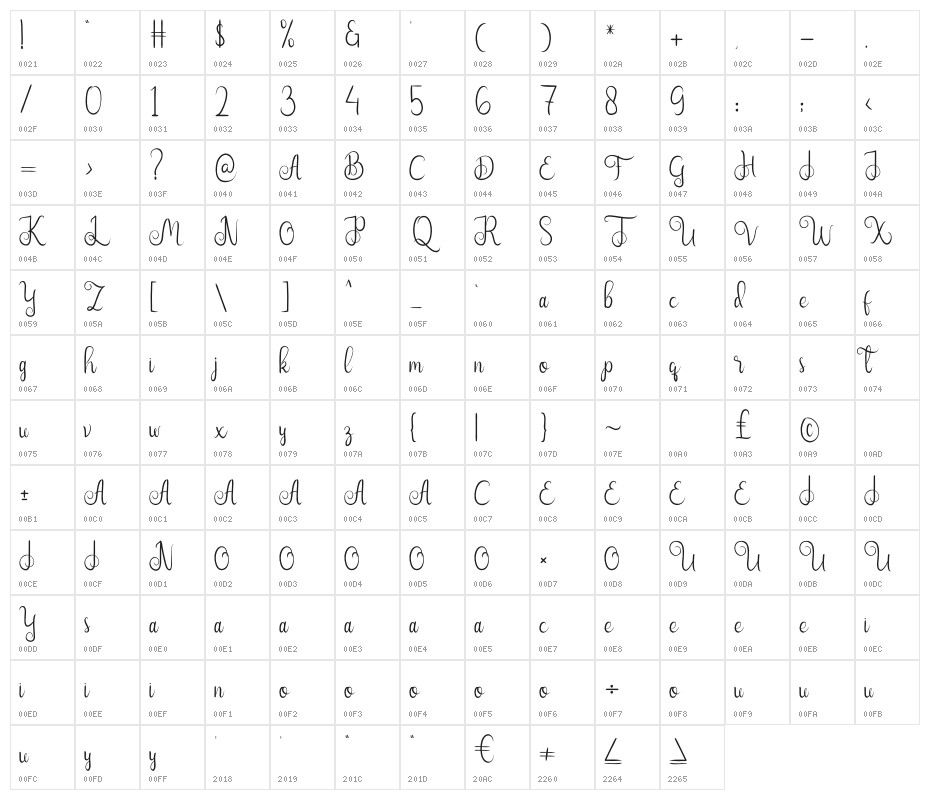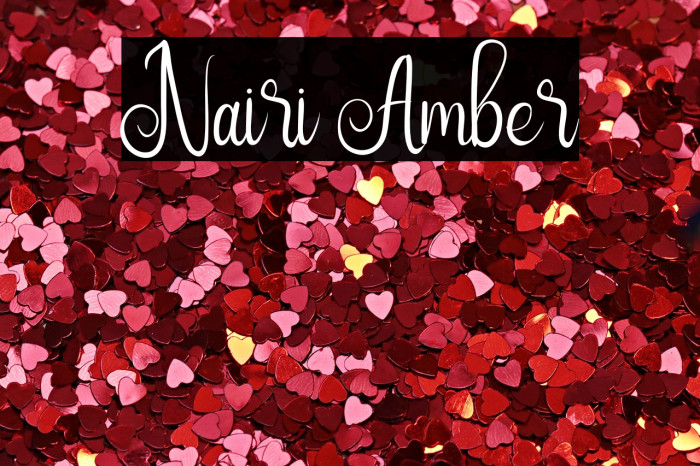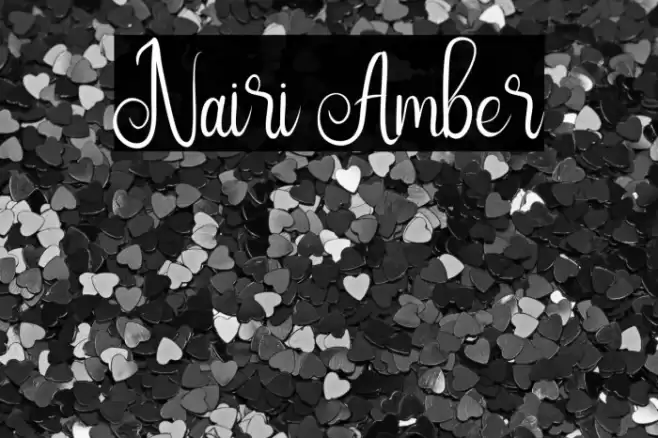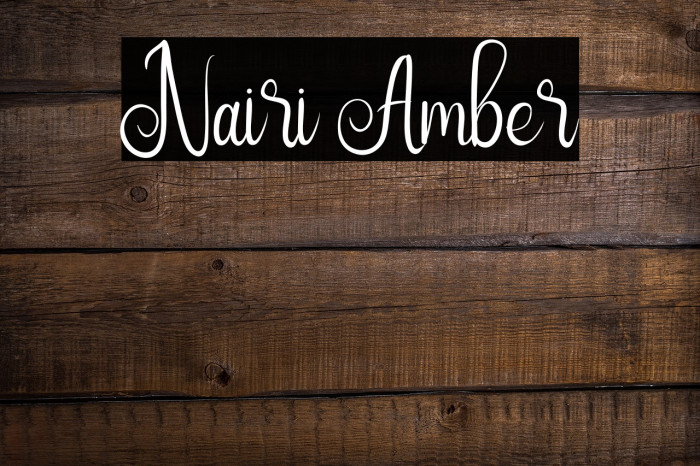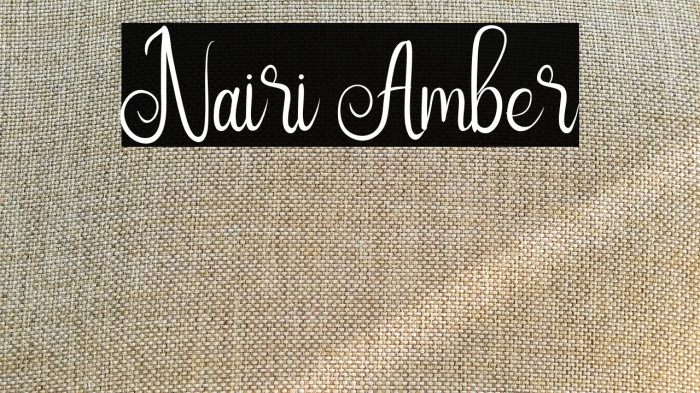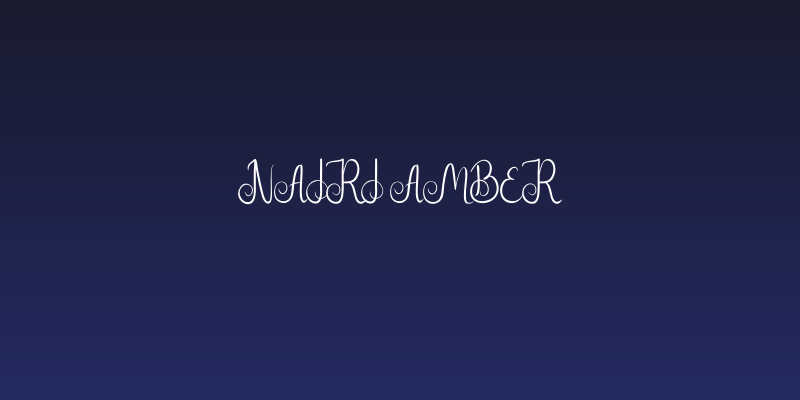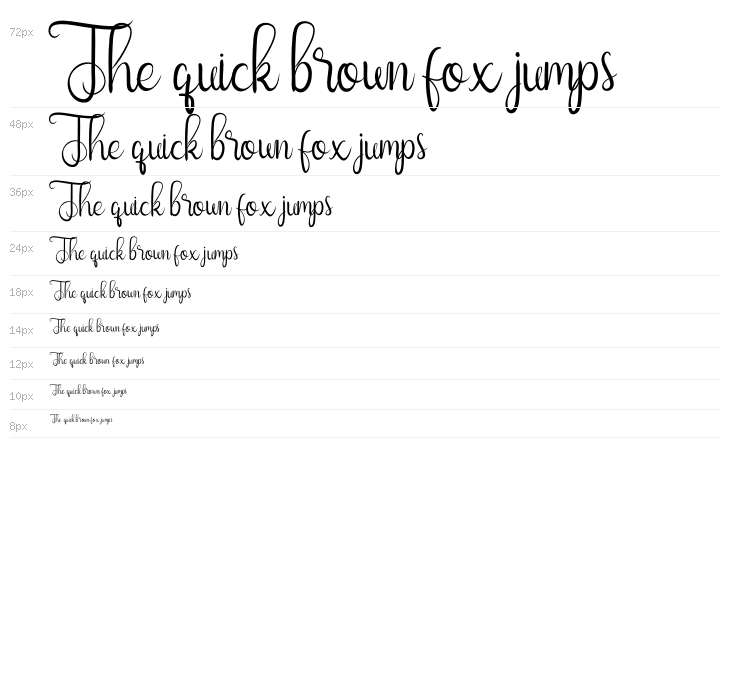
Nairi Amber Font
Nairi Amber Description
This font features an elegant and decorative script style, characterized by its flowing, interconnected letters and ornate loops. The uppercase letters are particularly elaborate, with intricate swirls and flourishes that give the font a sophisticated and artistic appearance. The lowercase letters maintain a consistent style, with smooth curves and a slightly whimsical touch. The numerals are bold and clear, matching the overall decorative theme. Special characters are creatively designed, adding to the font's unique charm. This font is ideal for projects that require a touch of elegance and creativity, such as invitations, greeting cards, and artistic branding.
| Use Case | Headlines, Artistic branding, Invitations |
| Proposed Projects | Ideal for invitations, greeting cards, artistic branding, and decorative projects. |